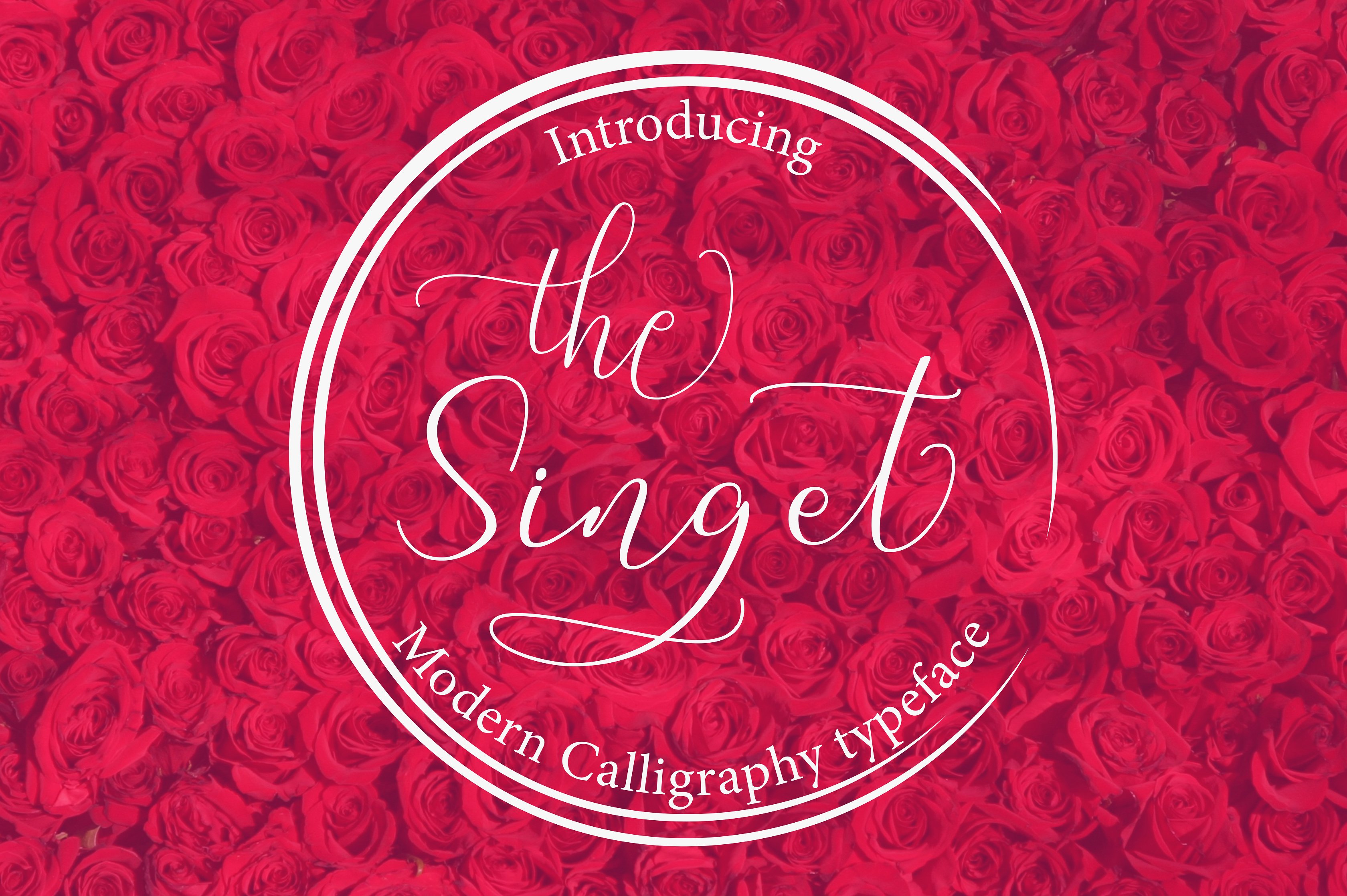
The Singet Script
The Singet Script Font
Introducing The Singet Script – a new fresh & modern script with a sweet calligraphy-style, decorative characters and a dancing baseline! So beautiful on invitation like greeting cards, branding materials, business cards, quotes, posters, and more!